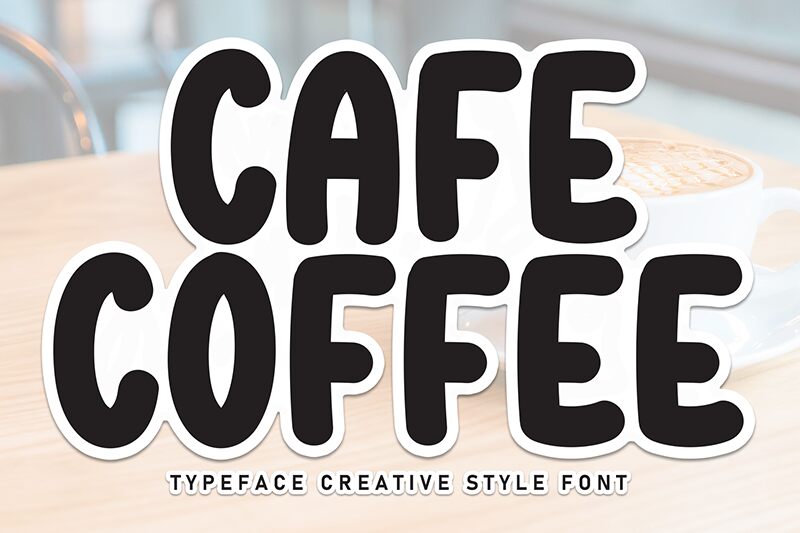
Cafe Coffee
Cafe Coffee font by Scratchones is a bold brush typeface with rounded, friendly characters. Its casual and inviting style carries retro-inspired elements that give it a lively, powerful presence overall. The playful factors and energetic look are ideal for instant impact and effortless visual communication.
Create signage, logos, branding packages, labels, marketing material, or website designs with this free display font. Build social media posts and layouts or try it out on T-shirts or merch items to boost sales without going to great efforts.